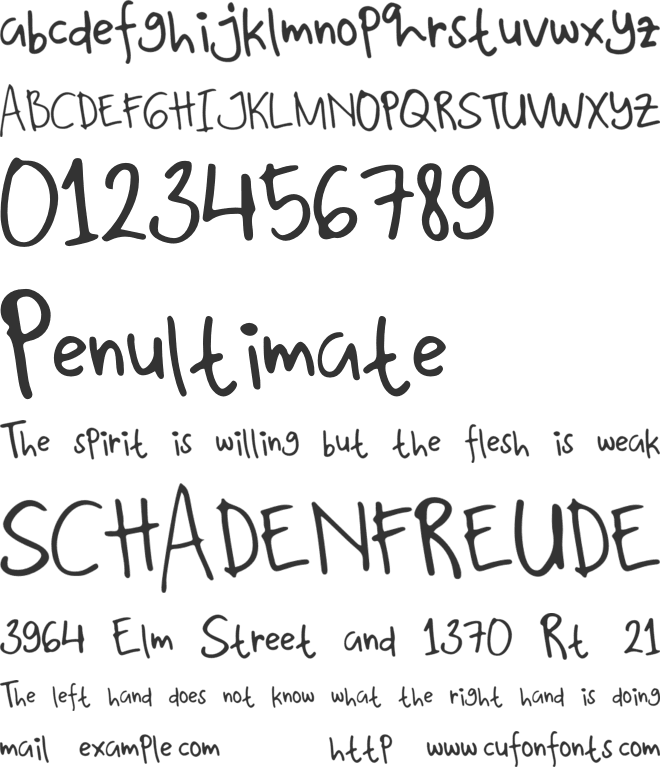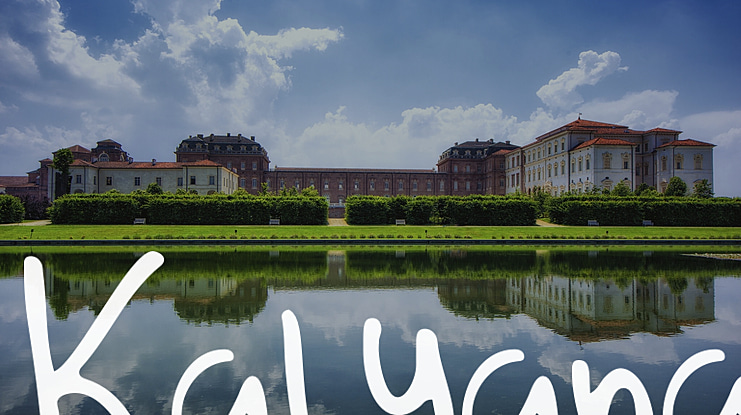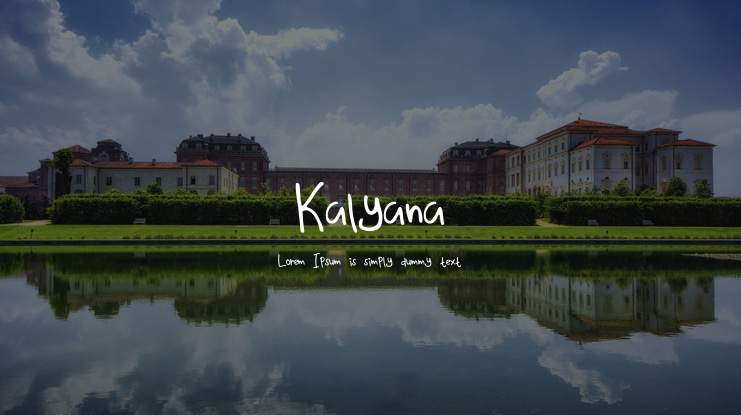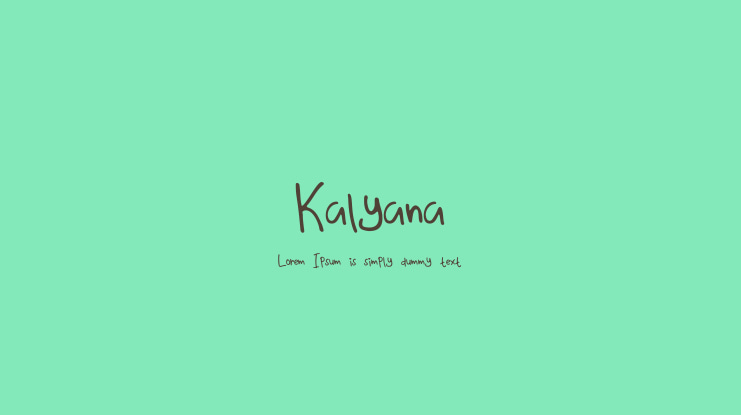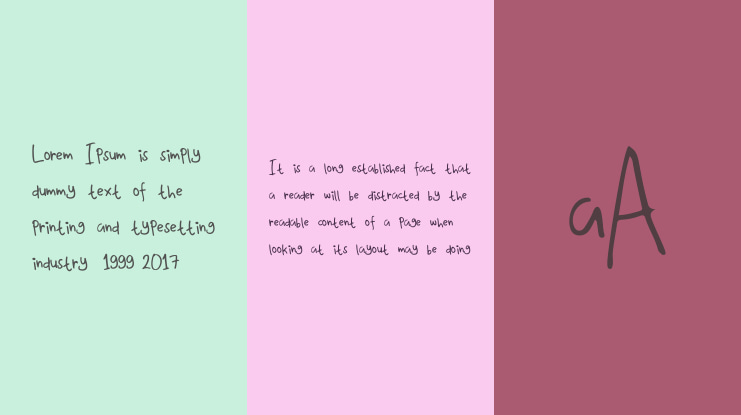
Kalyana Font
Kalyana is modern handwritten Sans-Serif font, inspired by childhood writing learning that introduce us to Writing society and first step for us to expressing our thought and as basic visual conversation. This font is designed to suit in any use, especially for magazine, doodle, social media, merchandise, make-up product, fashion, flyer, banner, poster, etc. Yet, you know better if this font is compatible for your product, any of it.